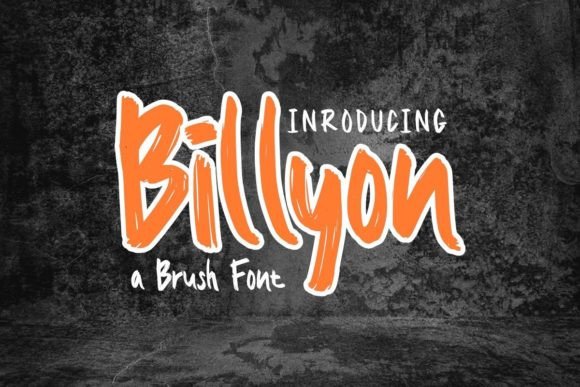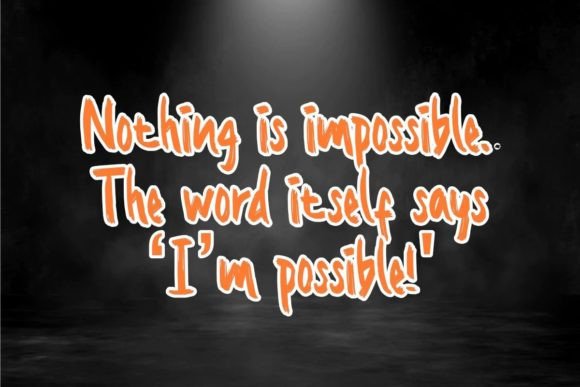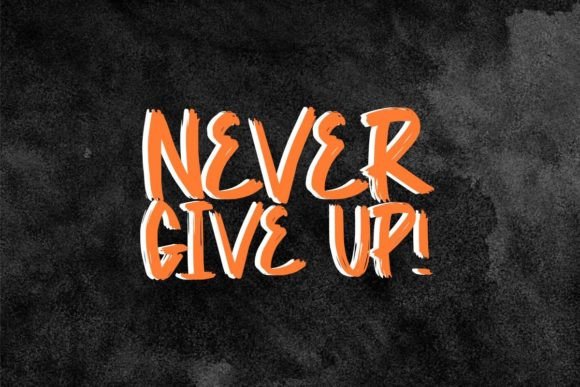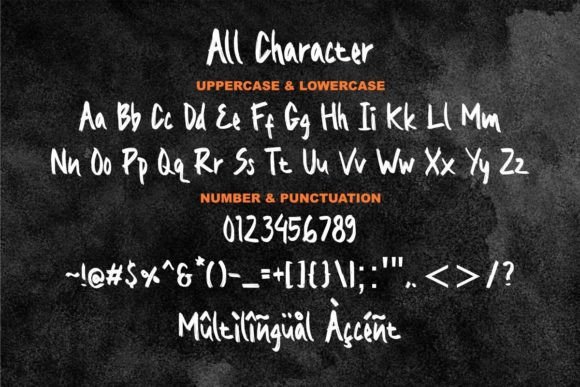
Billyon Font
About the Billyon Font
Step up your design game with Billyon Font, a font that exudes confidence and style. Billyon is a display font both striking and alluring. Carefully brushed, it is suitable for different crafts and projects such as printing on shirts, wall art, posters, and much more.
Billyon’s strong, confident strokes make it ideal for headlines, logos, and short, impactful branding statements. It excels in poster design and packaging where visual impact is key. However, its highly decorative nature makes it unsuitable for body text or UI elements requiring high readability. Avoid using it for large blocks of text.
Its bold personality pairs well with clean sans-serif fonts like Open Sans or Lato for a modern contrast, or a classic serif like Garamond or Playfair Display for a more traditional, yet balanced feel. Consider a script font like Great Vibes for added elegance in specific applications, but keep it limited to avoid visual clutter.
Billyon projects a bold, sophisticated, and slightly rebellious energy. It is best suited to brands aiming for a memorable and striking visual identity, particularly in fashion, music, or lifestyle sectors.
Billyon Font Usage Examples
Billyon Font Example